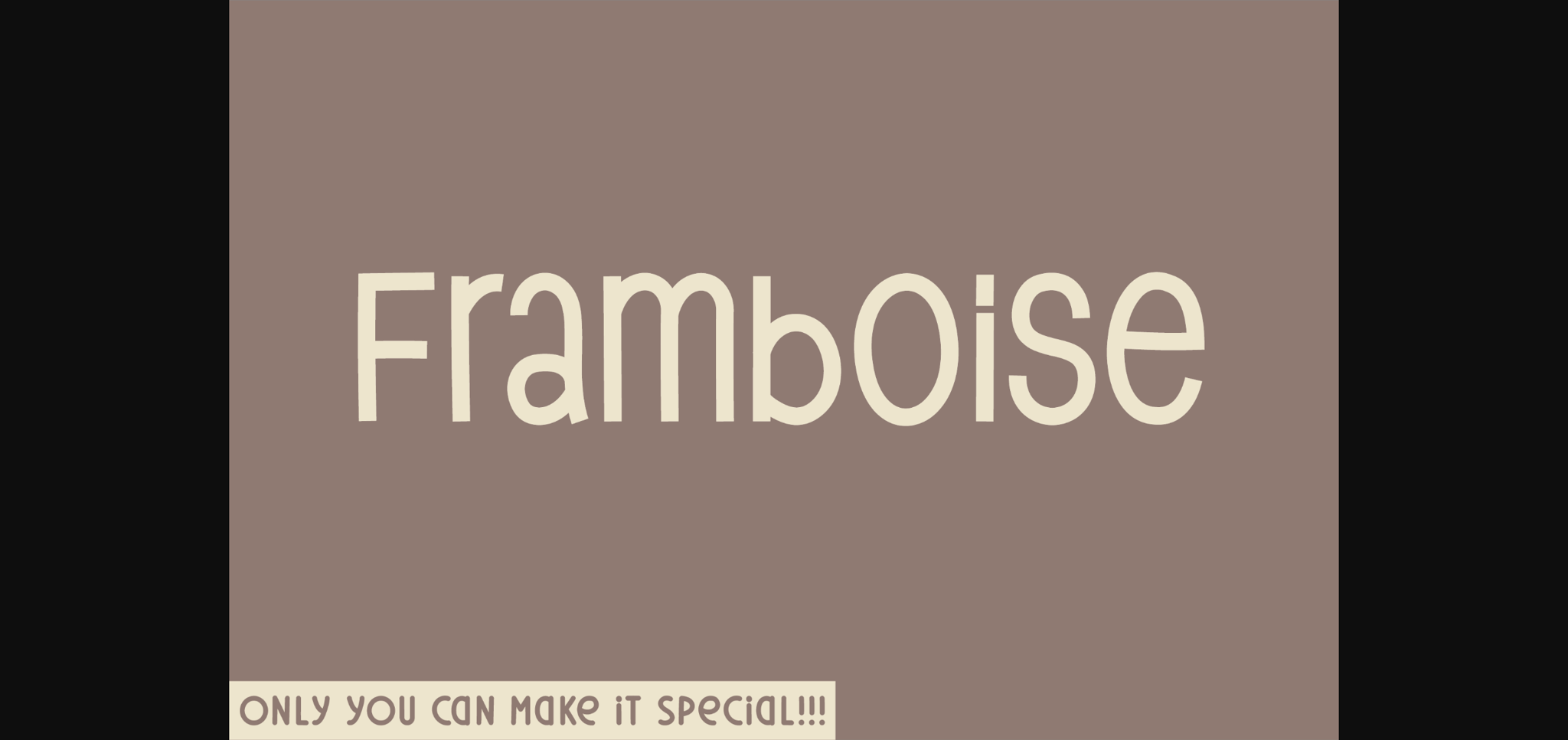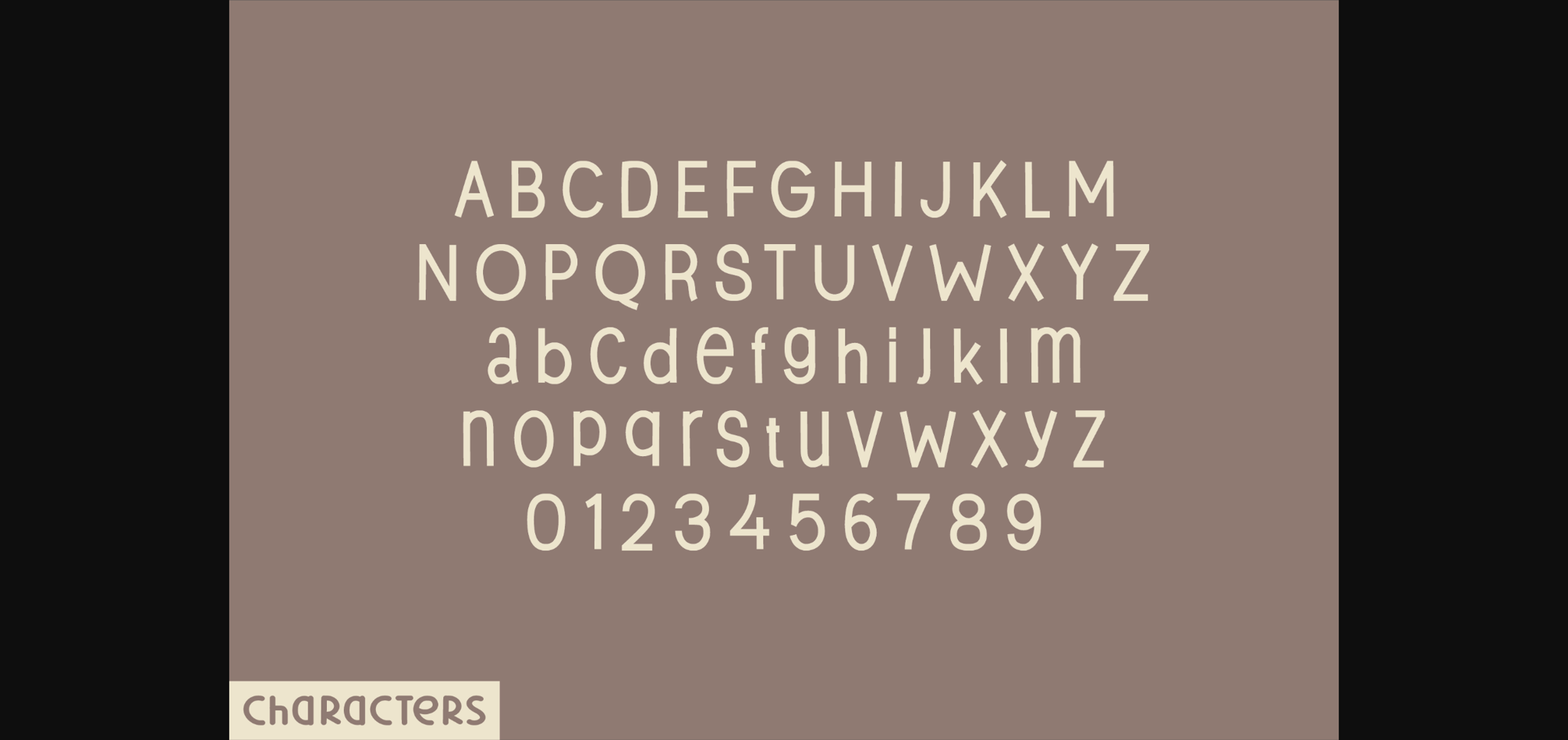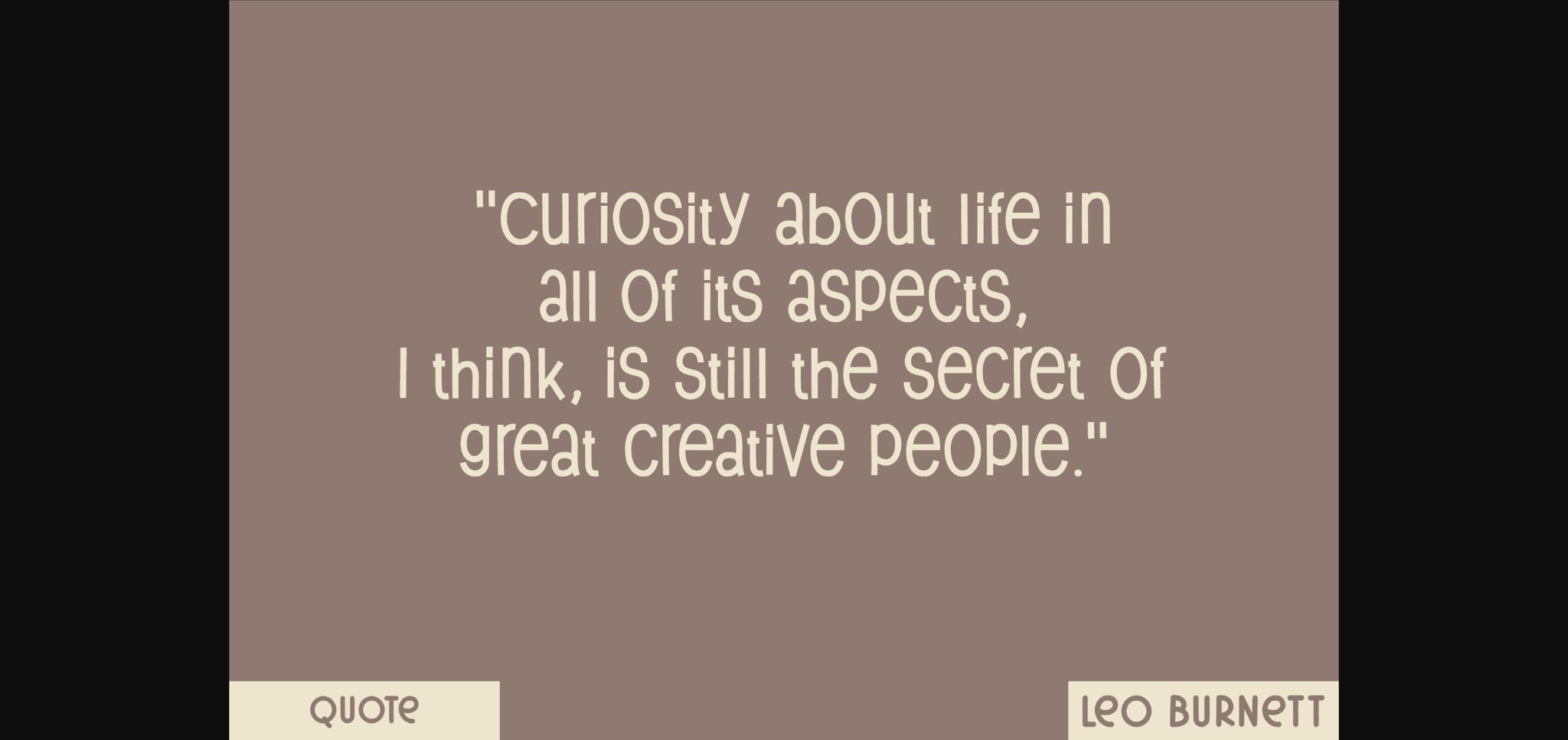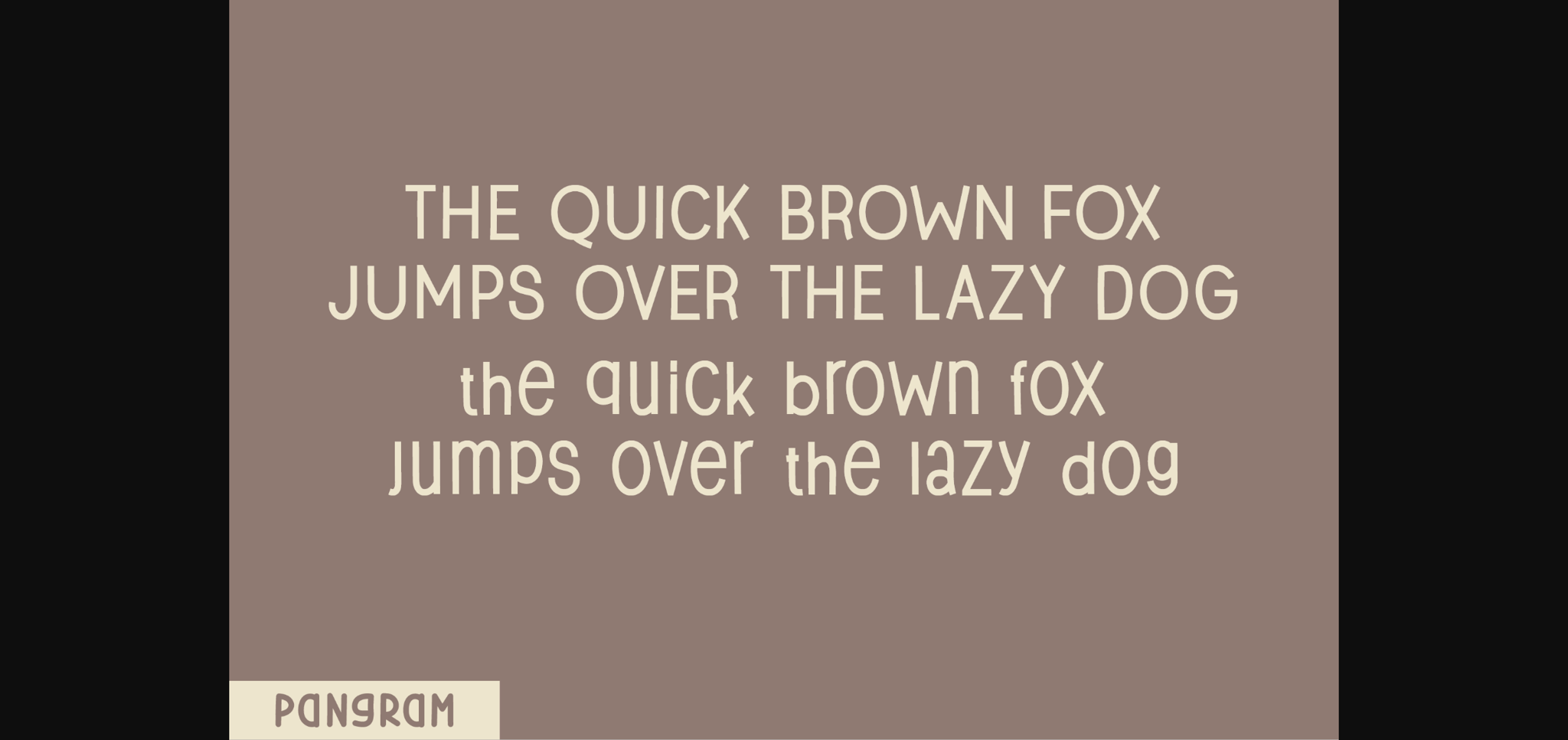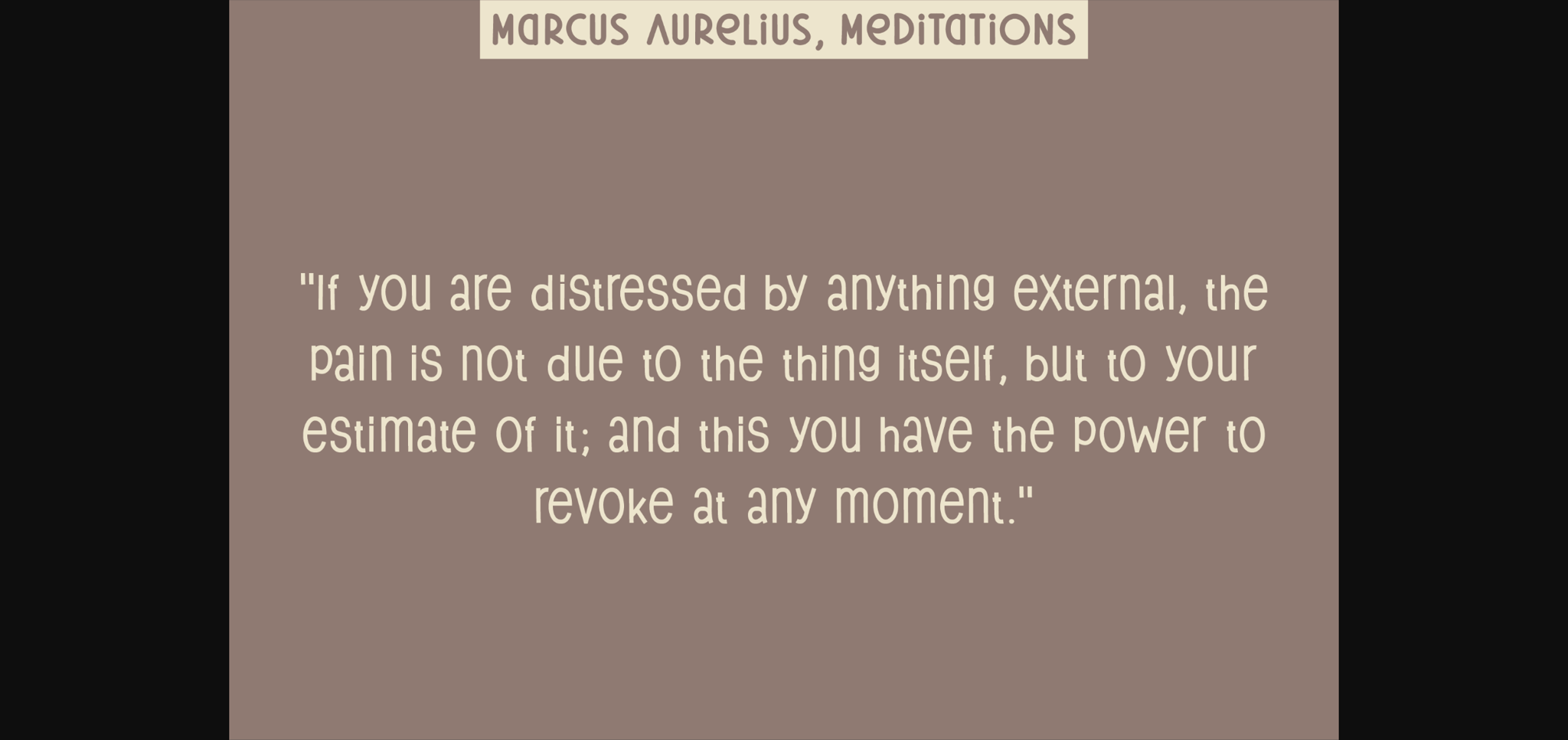
About Framboise Font
Indulge in the artistic finesse of Framboise, a display font with an elegant sans-serif touch. The design features an interesting spin on everyday shapes, as can be seen in the meticulous details of each letter. The result is an impression of strength blended with singular charm. Perfectly fitting for designs that aim to convey strong, distinctive messages with flair, Framboise lets your creativity flow be as bold and daring as your imagination permits.